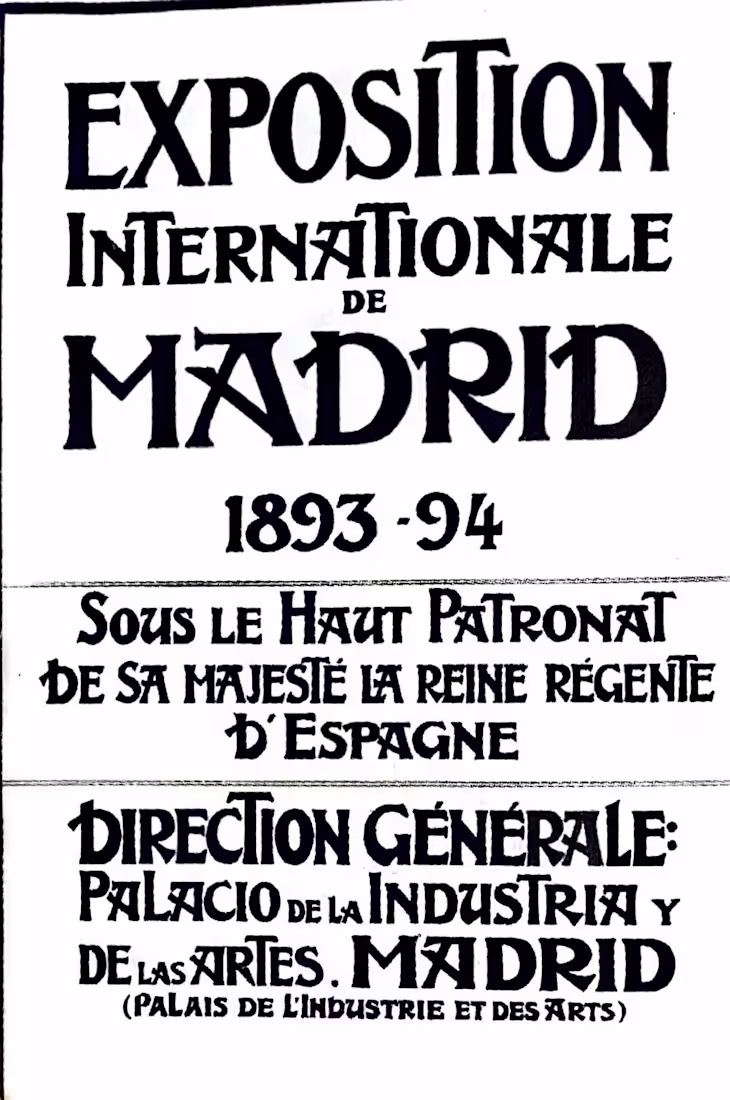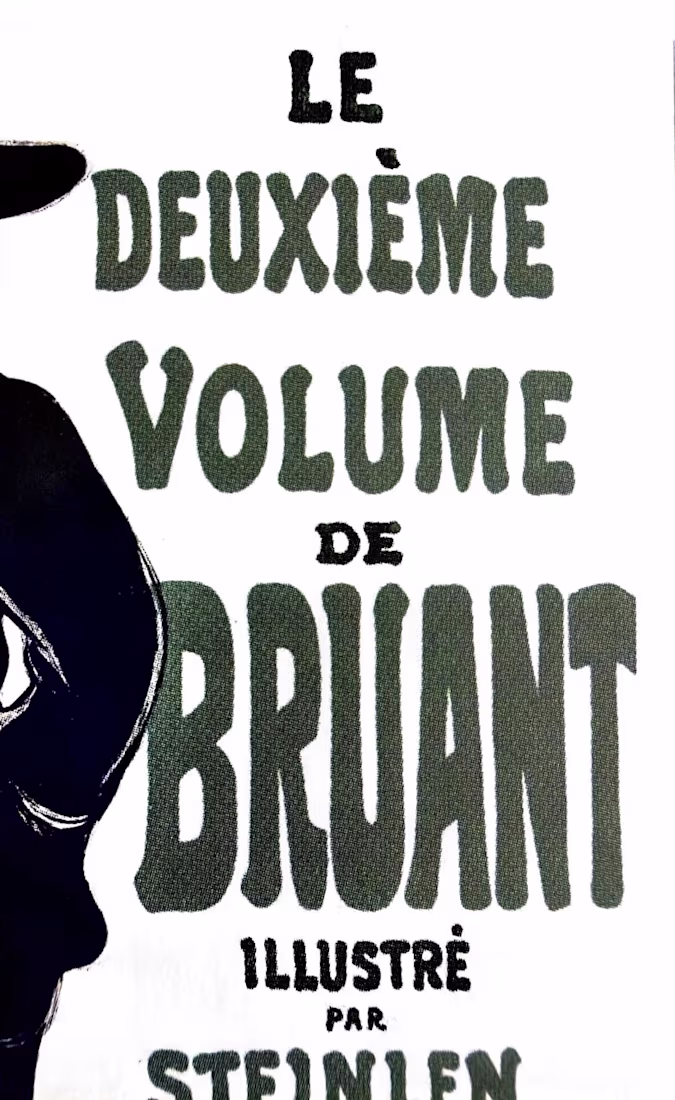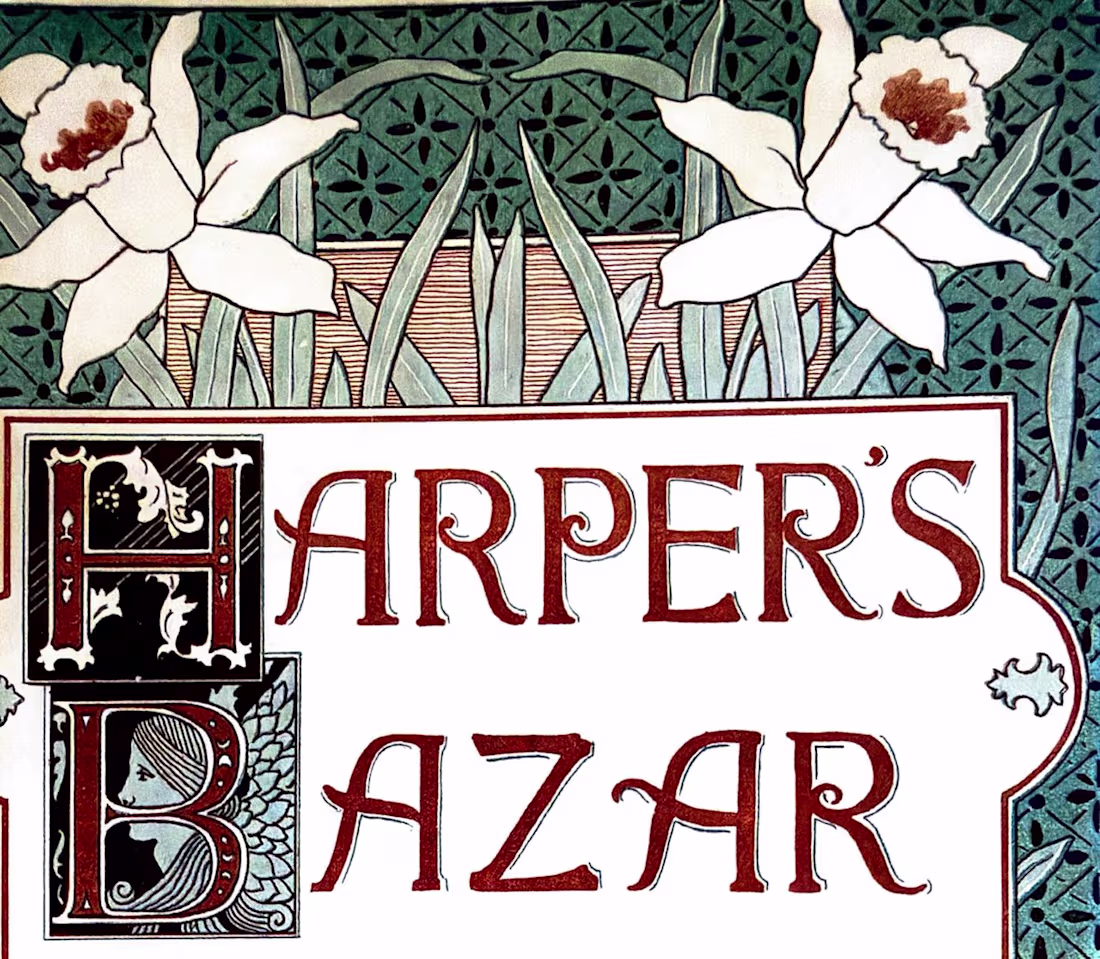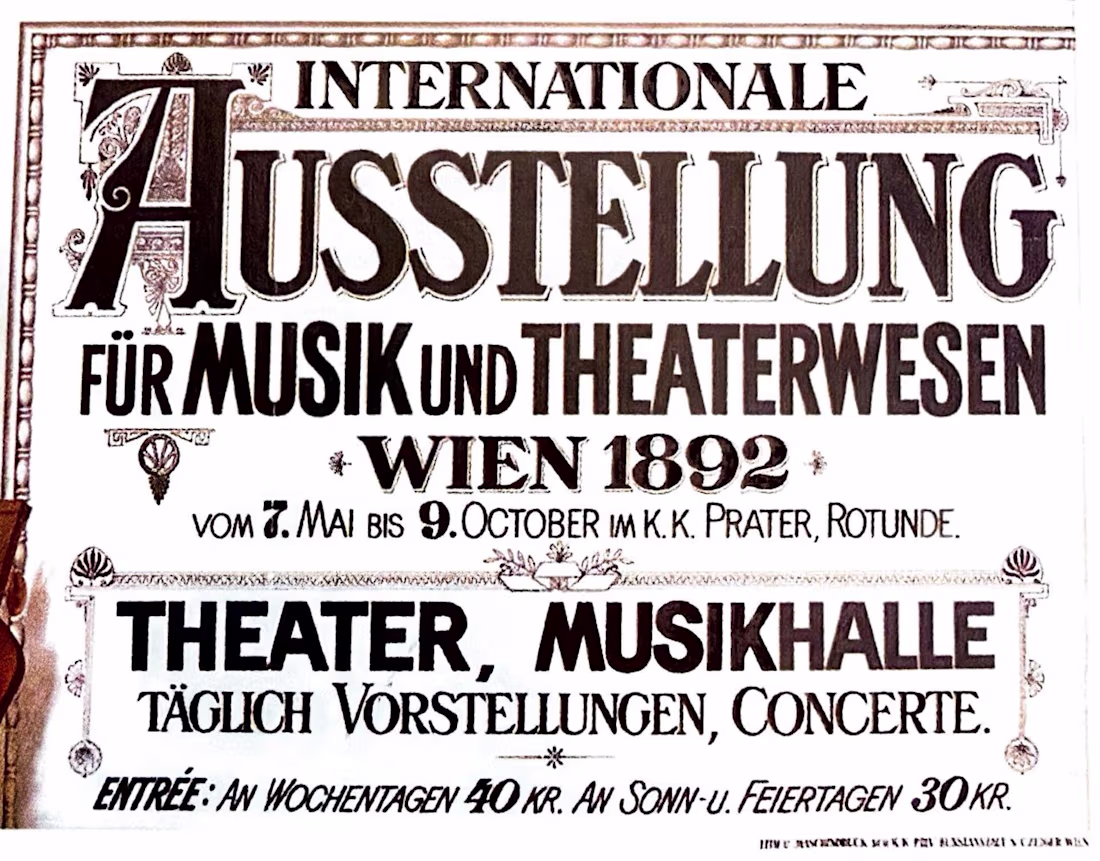
What did ads look like before typograhy was a file you could have in your computer and replicate multiple times?
Another little tour through The History of Design 1890–1959, this time looking specifically at how designers were treating type as an image rather than simply information. Previous post here.
Eugène Grasset, 1893 — beautifully controlled lettering and organic forms.
Toulouse-Lautrec, 1903 — expressive lettering becoming part of the energy of the poster.
Ernst Klimt, 1892 — decorative type working alongside illustration.
Louis Rhead, Harper's Bazar, 1892 — type, image, and ornament interacting as one visual system.
What I love about these references is that the type is part of the image.
Show me one historical typographic composition you’d steal inspiration from today. 👀
The Beggarstaffs' cut-paper posters from the late 1890s — the lettering sits in the gaps the shapes leave rather than on top of them. I still think about that when a wordmark has to live inside a busy pack layout: let the silhouette decide where the type goes instead of the grid.